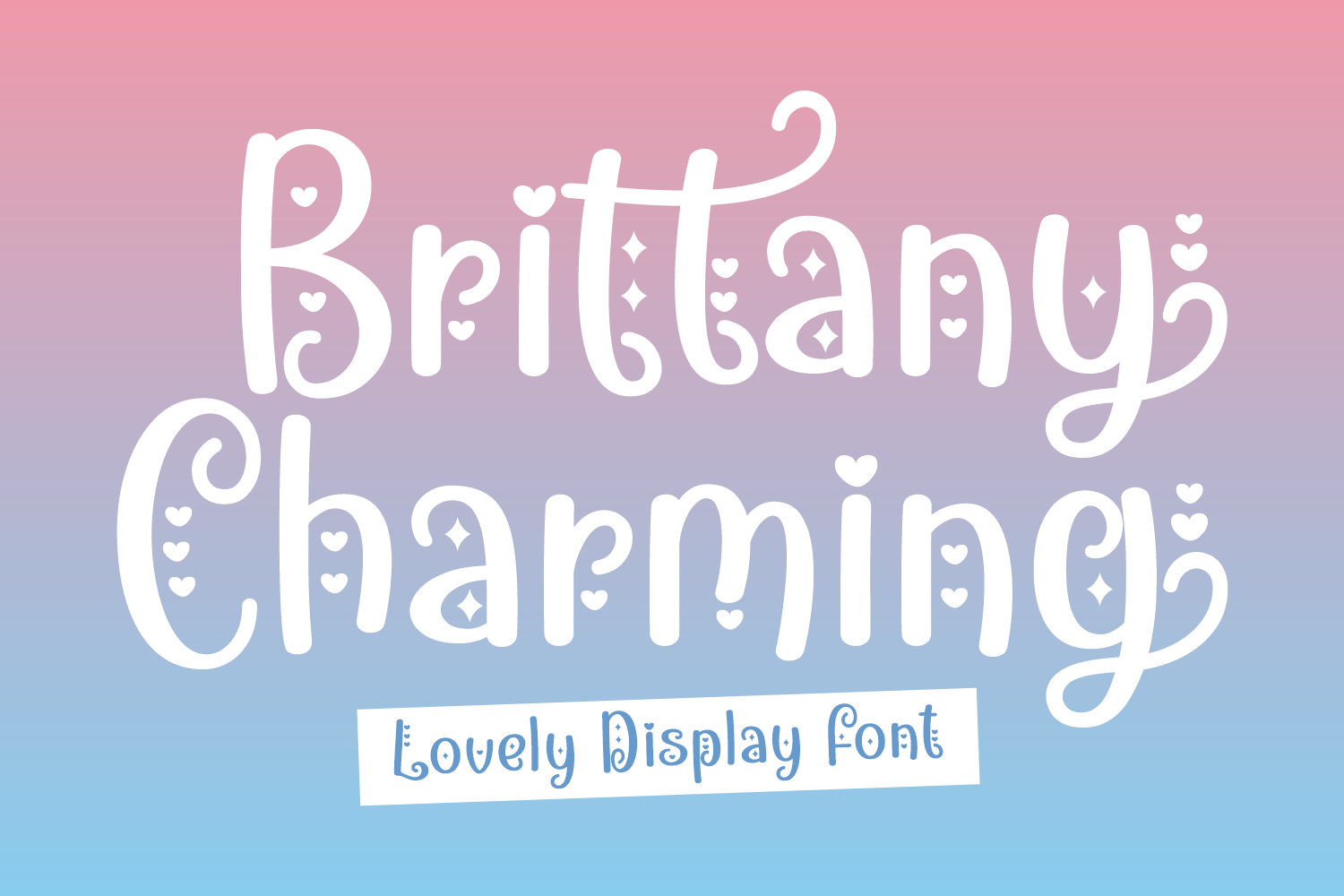
Brittany Charming is a chic and whimsical handwritten font. Featuring characters that dance along the baseline, this font will add a luxury spark to any design project you wish to create!